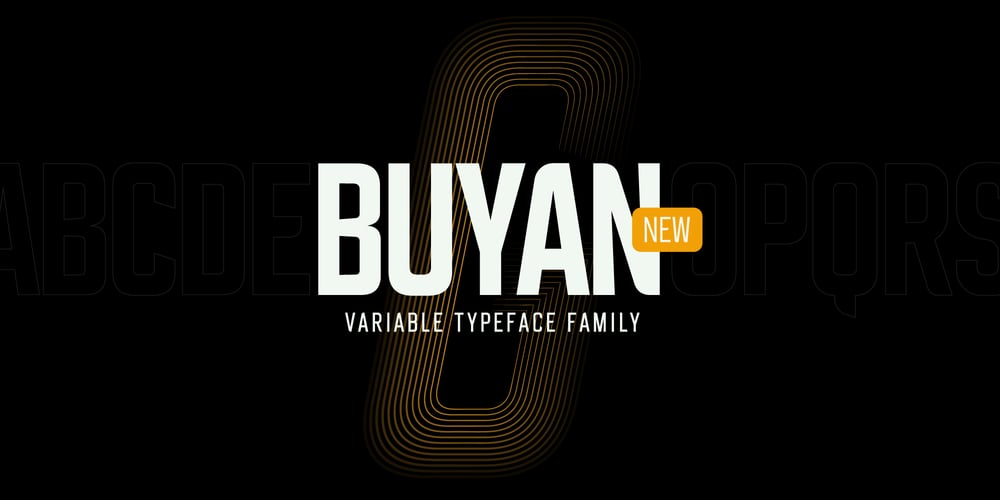
Buyan Variable Font Family was designed by Purev Khishigbayar and published by Yu Type. Buyan Variable contains 2 styles and family package options. Meet Buyan, a unique typeface family that draws inspiration from the iconic Mongolian film title “Nugel Buyan” 1963.Buyan is your go-to All Caps and Sans-Serif typeface, crafted with a sleek Condensed design that effortlessly blends style with readability. Elevate your projects with this versatile display font, adding a cool and contemporary touch to your text.This font family boasts a comprehensive range with 6 distinct weight styles and italics, allowing you to play with contrast and customize your text to suit your creative vision. Whether you’re working on branding, headlines, or any display application, Buyan is the perfect choice to bring a modern and impactful aesthetic to your work. Elevate your design game with Buyan!